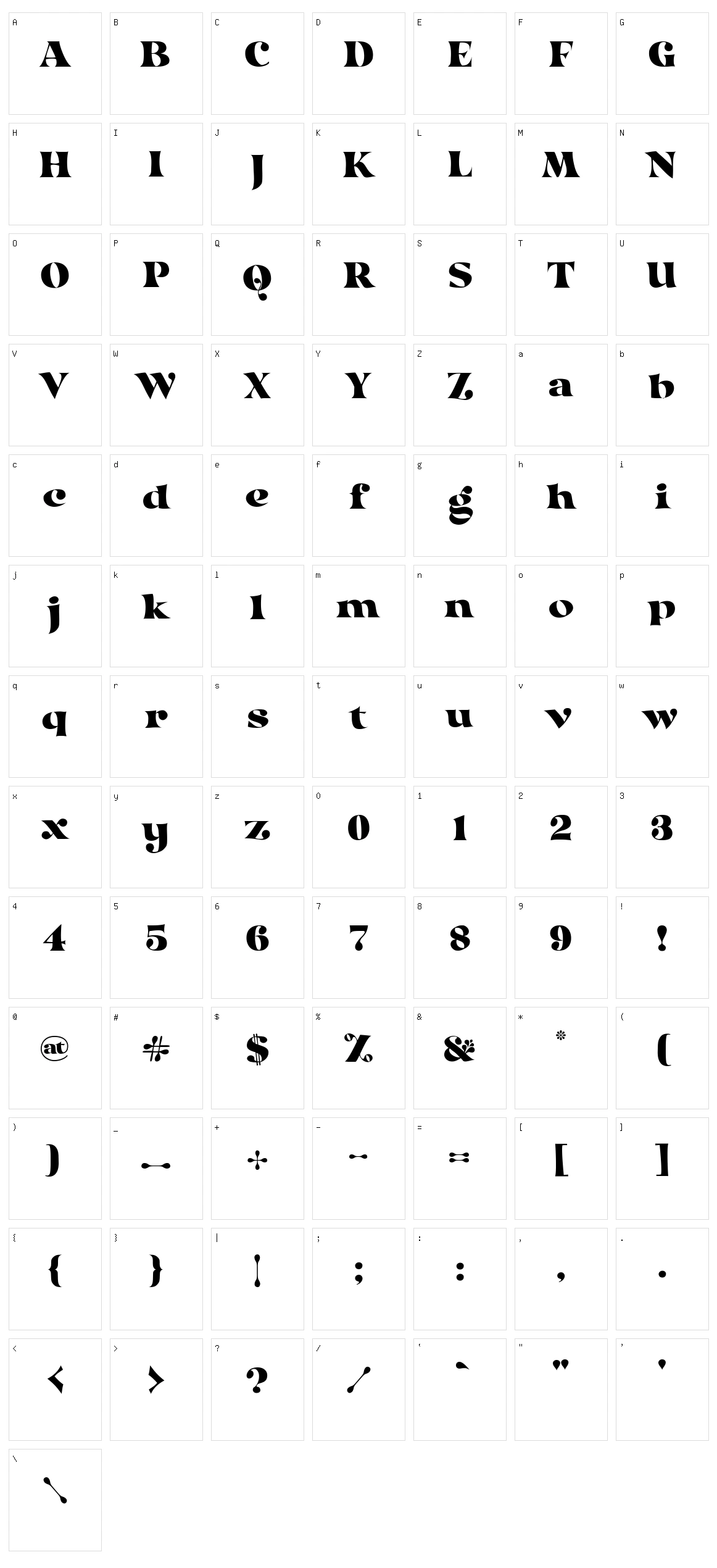
The free font Curvilingus is carefully designed by Tup Wanders, showcasing a thoughtful balance of creativity and usability and falls under the Groovy font style. When you download the ZIP file, it contains only 57.67 KB of font files, making it lightweight and quick to download. Please review the license details below to understand permitted usage and distribution rights. If license information is not available, we recommend using this font for personal projects only or contacting the author directly for commercial usage permissions.